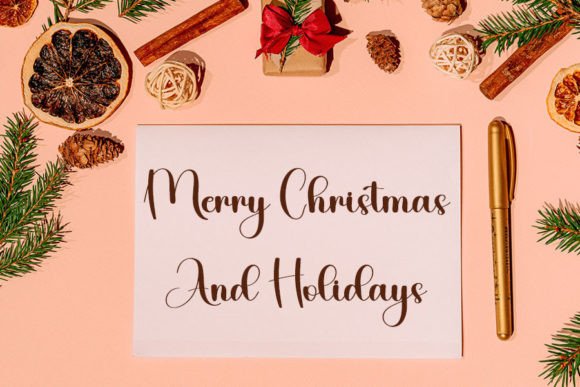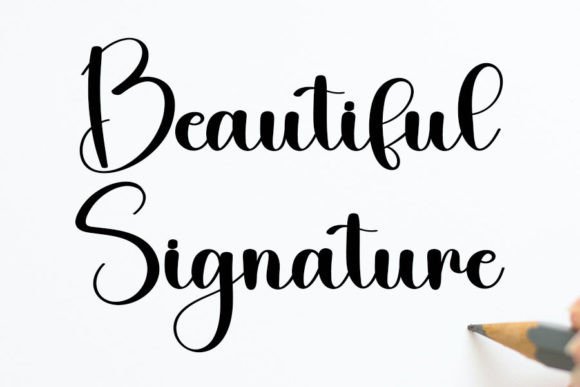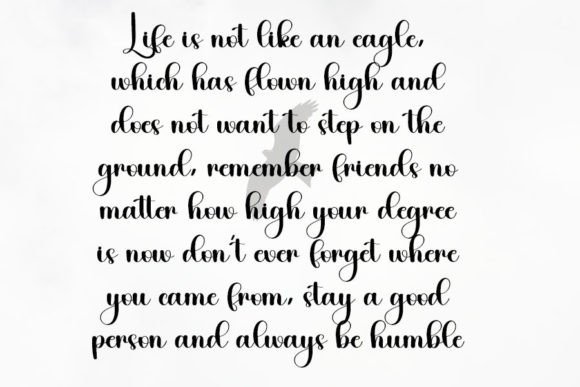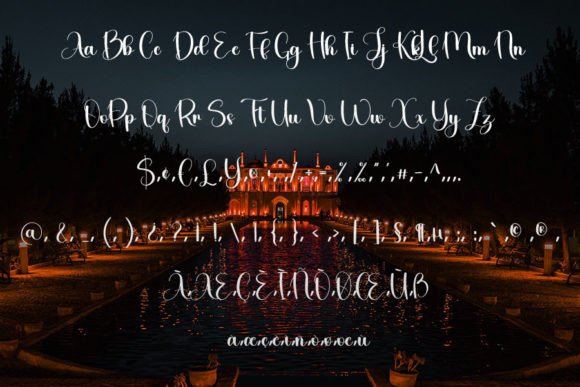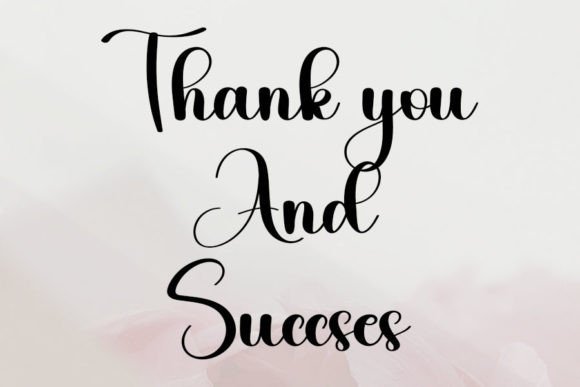
About Stay Humble Font
Stay Humble is a sweet and beautiful handwritten font. Featuring characters that dance along the baseline, this font will add a luxury spark to any design project you wish to create!